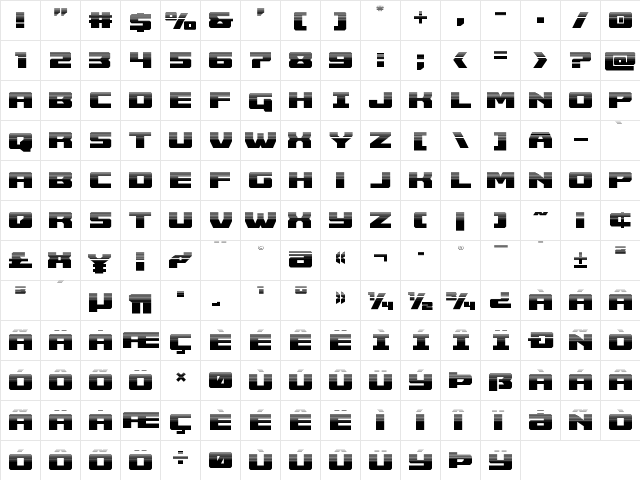
Cruiser Fortress Halftone Regular
Design Context for Cruiser Fortress Halftone Typeface
Cruiser Fortress Halftone is a composed and adaptable typeface that performs quietly and consistently across a wide range of design contexts.